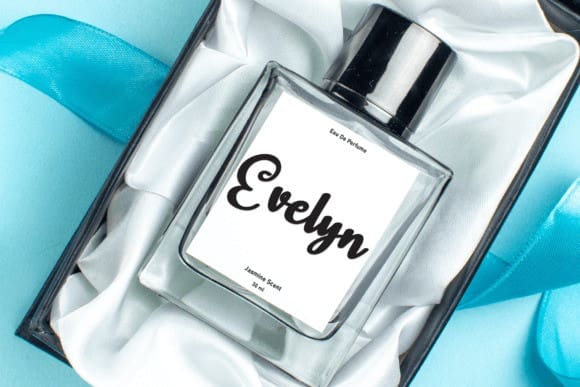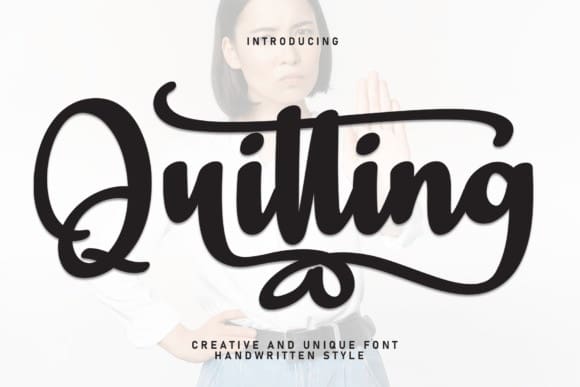
Quitting Script Font
Quitting Script Font, is a sweet and friendly handwritten display font. Cute and fun, this font is ideal for writing wedding invitations, cards, or any other design that might need a fun touch!